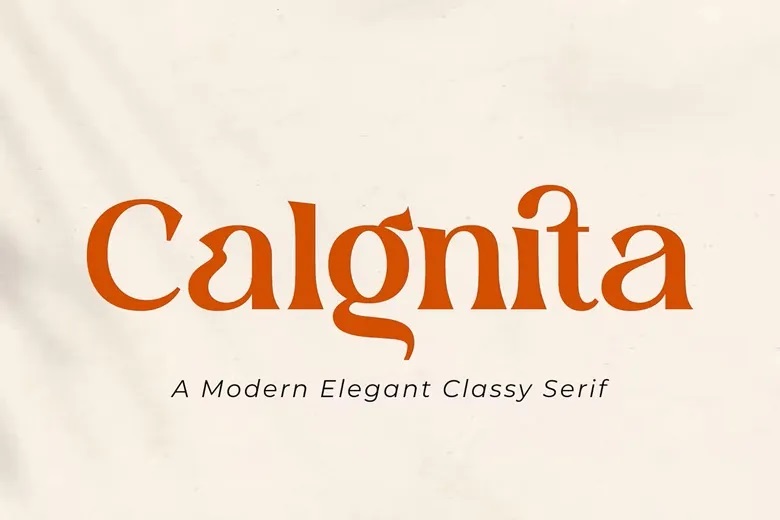
Calgnita is a modern classic serif font that exudes elegance and sophistication. Its classic shapes and smooth curves give it a timeless look, making it a great choice for branding, logos, and many other design projects. This font is more than just attractive. It also helps make your content easier to read and more accessible.
Calgnita Serif Font